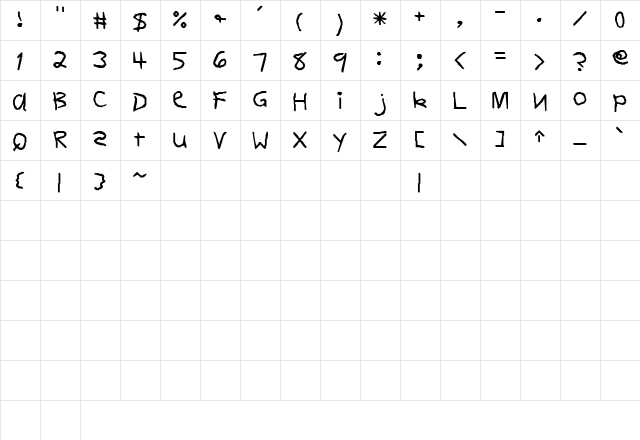
First Grade Display Caps SSi Regular Font Preview
First Grade Display Caps SSi Regular
First Grade Display Caps SSi Regular Font Details
Design Context for First Grade Display Caps SSi Typeface
First Grade Display Caps SSi is built around its visual character rather than neutral utility — its distinctive forms are designed to make an impression at display sizes.